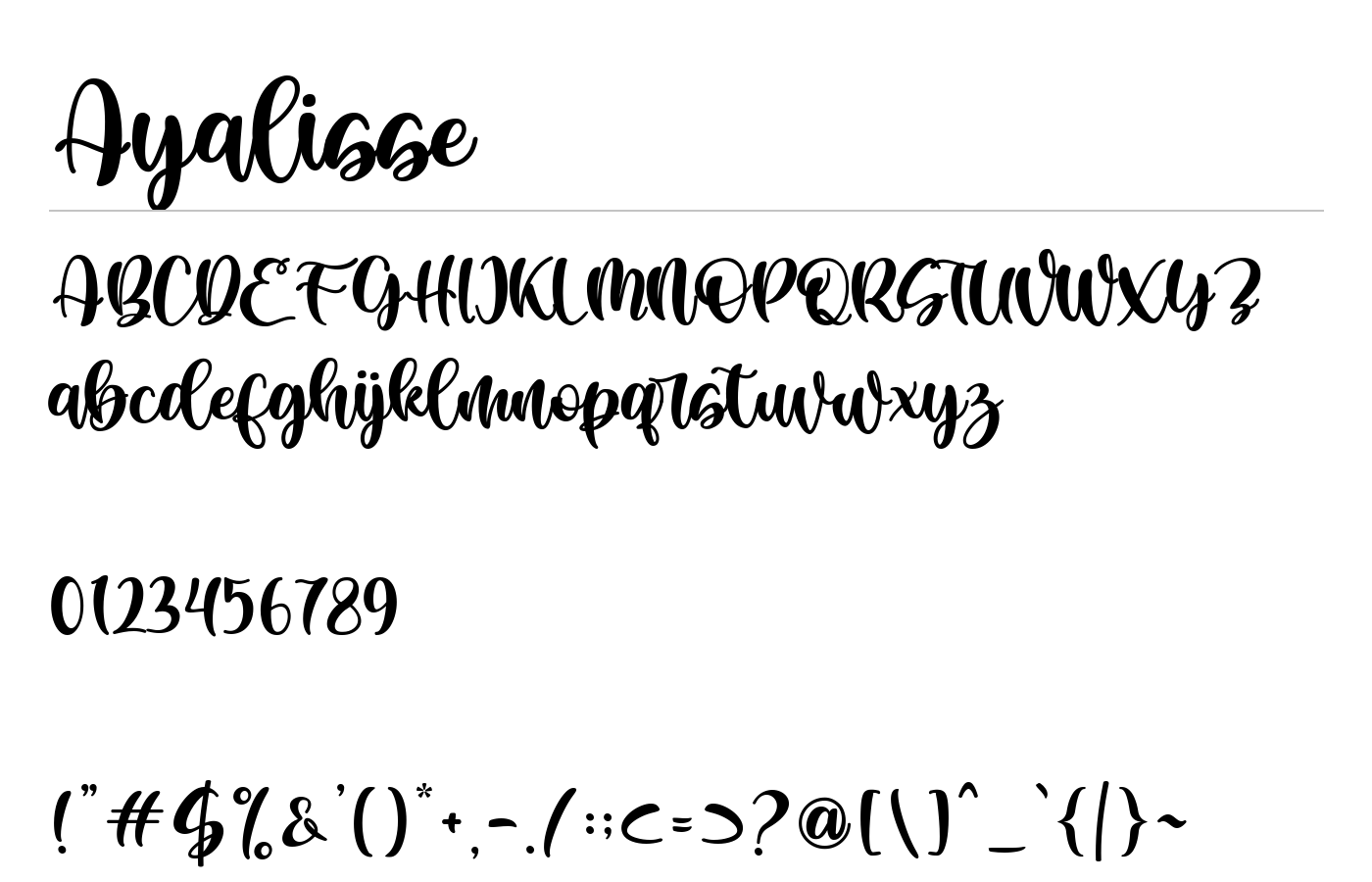
Ayalisse is a lively and elegant script font featuring fluid, hand-lettered strokes with a bold weight and smooth curves that bring a playful yet refined charm. Its unique letterforms with swashes and loops make it perfect for creative branding, invitations, and stylish headlines where a personal, artistic touch is desired. This font's friendly and expressive personality works beautifully in fashion, beauty, and lifestyle projects.
Ayalisse Font